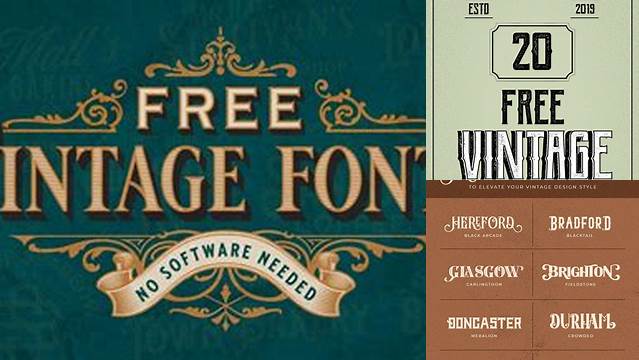
Timeless Style: Free Vintage Fonts For Your Designs
Are you guys looking to infuse your designs with a touch of nostalgia and old-school charm? Free vintage fonts are the perfect way to do just that! These fonts evoke a sense of history and craftsmanship, adding a unique character to any project. Whether you're working on a logo, poster, website, or any other design, a vintage font can make a huge difference. In this article, we'll dive deep into the world of free vintage fonts, exploring their appeal, different styles, where to find them, and how to use them effectively.
The Enduring Appeal of Vintage Fonts
Vintage fonts have an enduring appeal because they connect us to the past. They remind us of a time when things were made with care and attention to detail. This nostalgic quality can add a sense of authenticity and credibility to your designs. Think about old movie posters, classic book covers, and vintage advertisements – they all have a distinct visual style that vintage fonts can help you replicate. When you incorporate a vintage font into your work, you're not just choosing a typeface; you're telling a story and creating an atmosphere.
The beauty of vintage fonts lies in their imperfections. Unlike the clean, geometric lines of modern fonts, vintage typefaces often have quirks and irregularities that give them character. These imperfections are what make them feel human and approachable. A slightly uneven line, a unique curve, or a subtle flourish can make a big difference in the overall feel of your design. This is especially important in a world where so much design feels sterile and mass-produced. By using a free vintage font, you can inject some personality and warmth into your project, making it stand out from the crowd.
Moreover, vintage fonts are incredibly versatile. They can be used in a wide range of design applications, from branding and packaging to web design and print materials. A well-chosen vintage font can help you create a cohesive and visually appealing brand identity. For example, a handcrafted serif font might be perfect for a coffee shop logo, while a bold sans-serif could work well for a craft brewery. The key is to find a font that matches the tone and style of your project. And with so many free vintage fonts available, you're sure to find the perfect one for your needs. Using a free vintage font also allows you to save on costs, especially if you are just starting out or working on a personal project. There are countless high-quality vintage fonts available for free, meaning you don't have to compromise on quality even with a limited budget. This accessibility makes vintage fonts a fantastic option for designers of all levels.
Exploring Different Styles of Free Vintage Fonts
The world of free vintage fonts is vast and varied, encompassing a wide range of styles and aesthetics. Understanding these different styles can help you choose the right font for your project. Some popular categories include serif, sans-serif, script, and decorative fonts. Each style has its own unique characteristics and evokes a different feeling.
Serif fonts are characterized by the small decorative strokes (serifs) at the ends of the letterforms. They are often associated with tradition, authority, and elegance. Vintage serif fonts can range from classic Roman typefaces to more ornate and decorative styles. These fonts are perfect for projects that need a touch of formality or sophistication, such as logos for law firms or invitations for upscale events. Some popular free vintage serif fonts include Playfair Display, Lora, and Merriweather. These fonts offer a timeless look that can add a sense of class to your designs. You can also use them in body text to improve readability, as serifs help guide the reader's eye along the line of text. In the context of free vintage fonts, serif typefaces offer a blend of historical charm and modern usability.
Sans-serif fonts, on the other hand, lack serifs and have a cleaner, more modern appearance. Vintage sans-serif fonts often have a bold, industrial feel, reminiscent of early 20th-century advertising and signage. These fonts are great for projects that need to convey a sense of strength, simplicity, and modernity. They are commonly used in logos, headlines, and website designs. Examples of free vintage sans-serif fonts include Montserrat, Raleway, and Bebas Neue. These fonts provide a strong visual impact and work well in a variety of contexts. The clean lines of vintage sans-serif fonts make them particularly useful for projects where readability is crucial, such as websites and mobile apps. By choosing a free vintage sans-serif font, you can achieve a contemporary yet timeless aesthetic.
Script fonts mimic the fluidity of handwriting and can add a touch of elegance and personality to your designs. Vintage script fonts range from formal calligraphy styles to playful brush scripts. These fonts are ideal for projects that need a personal touch, such as wedding invitations, greeting cards, and branding for artisanal products. Some popular free vintage script fonts include Great Vibes, Alex Brush, and Pacifico. These fonts can create a sense of intimacy and craftsmanship. However, it's important to use script fonts sparingly, as they can be difficult to read in large blocks of text. When used correctly, a free vintage script font can elevate your design and make it truly unique.
Finally, decorative fonts encompass a wide range of styles that don't fit neatly into the other categories. Vintage decorative fonts can include everything from Art Deco typefaces to Victorian-era display fonts. These fonts are often highly stylized and are best used for headlines, logos, and other display purposes. They can add a lot of character and visual interest to your designs. Examples of free vintage decorative fonts include Fredericka the Great, Bellerose, and Lobster. These fonts are perfect for projects that need a strong visual statement. However, like script fonts, decorative fonts should be used carefully to avoid overwhelming the design. With a free vintage decorative font, you can create eye-catching designs that stand out from the crowd.
Where to Find Free Vintage Fonts
Finding high-quality free vintage fonts is easier than you might think. Numerous websites and online resources offer a wide selection of typefaces that you can download and use in your projects. However, it's important to be mindful of licensing terms and ensure that the fonts you choose are truly free for commercial use if that's your intention. Here are some of the best places to find free vintage fonts:
Google Fonts: Google Fonts is a fantastic resource for free fonts of all styles, including vintage fonts. The fonts are open-source, meaning they are free to use for both personal and commercial projects. Google Fonts offers a user-friendly interface that allows you to easily browse and preview fonts. You can also filter fonts by category, style, and other criteria. Many designers appreciate the accessibility and reliability of Google Fonts, making it a go-to source for free vintage fonts. Plus, using Google Fonts can help improve your website's loading speed, as the fonts are hosted on Google's servers.
Free vintage fonts are a valuable resource for designers looking to add a touch of history and character to their work. With a wide range of styles available, from classic serifs to bold sans-serifs and elegant scripts, there's a vintage font for every project. By understanding the different styles of vintage fonts, knowing where to find them, and following the tips for using them effectively, you can create stunning designs that stand the test of time. So go ahead, guys, explore the world of free vintage fonts and see what you can create!